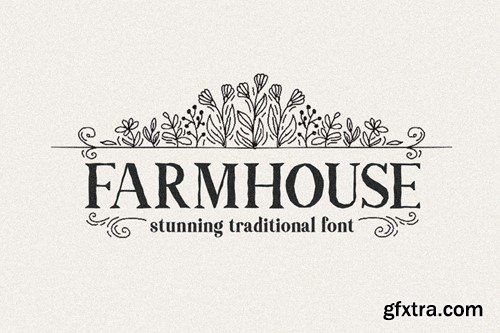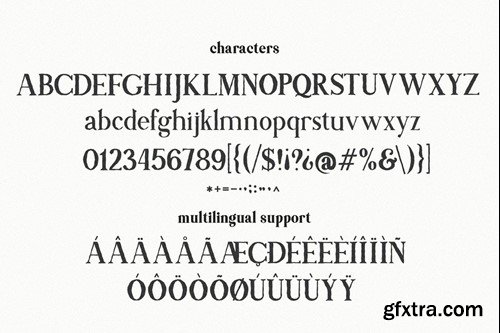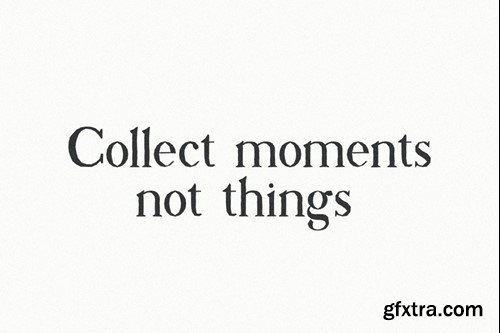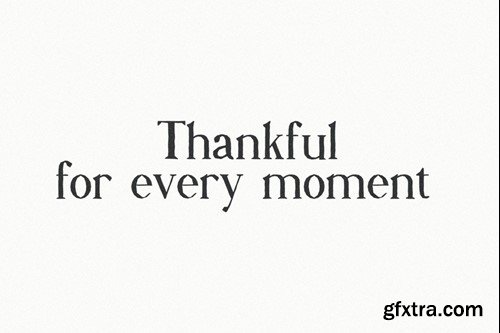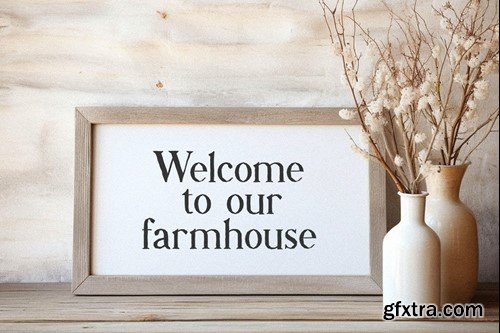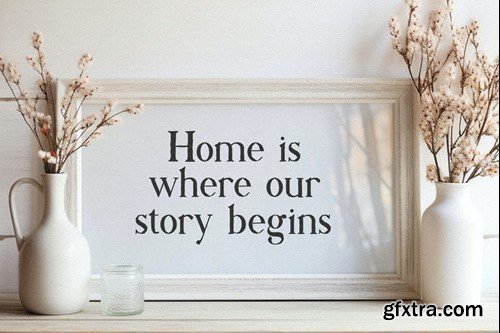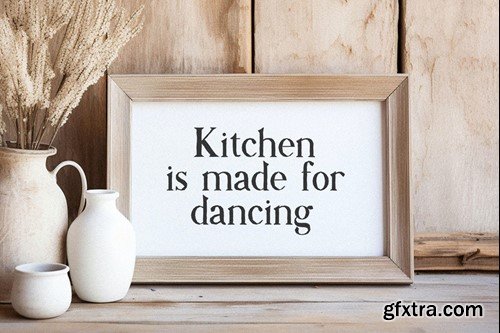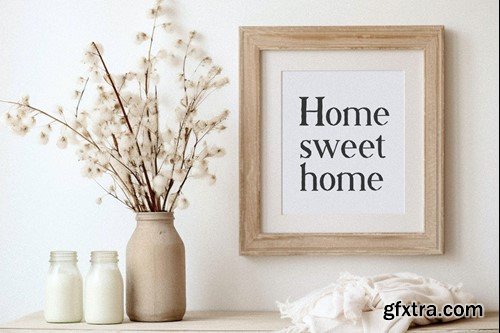
Farmhouse Rustic Font VTSFAXB
Farmhouse Rustic Font
Farmhouse - a rustic vintage font. Perfect to create stickers, quotes, prints, cricut projects, sublimation designs and svg files.